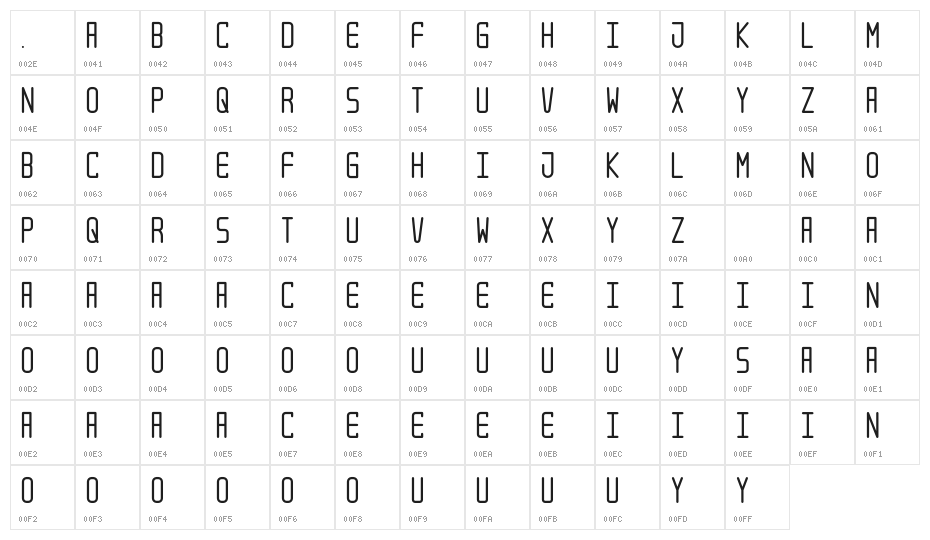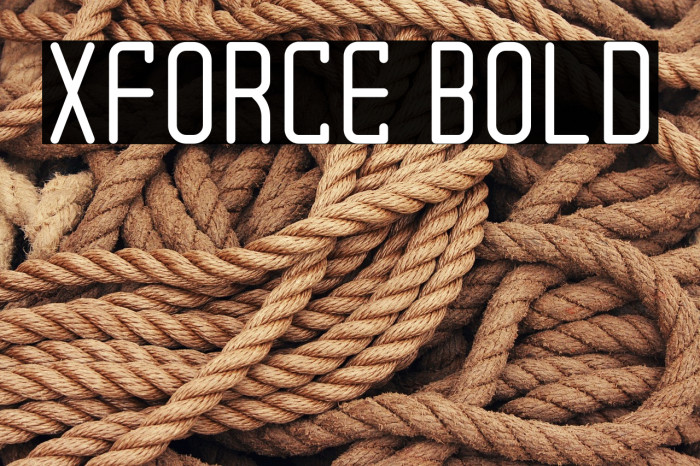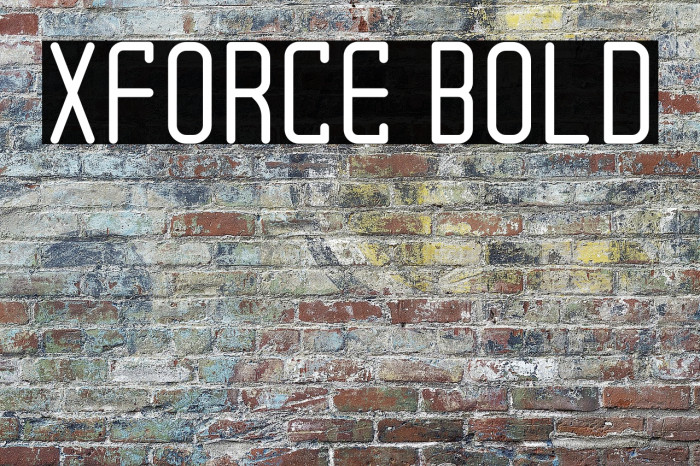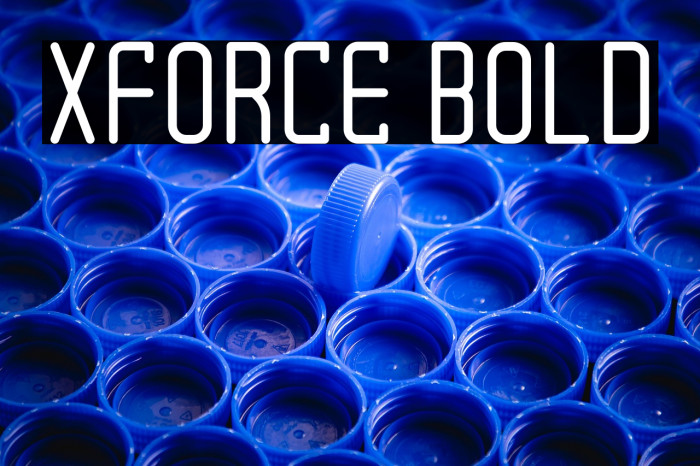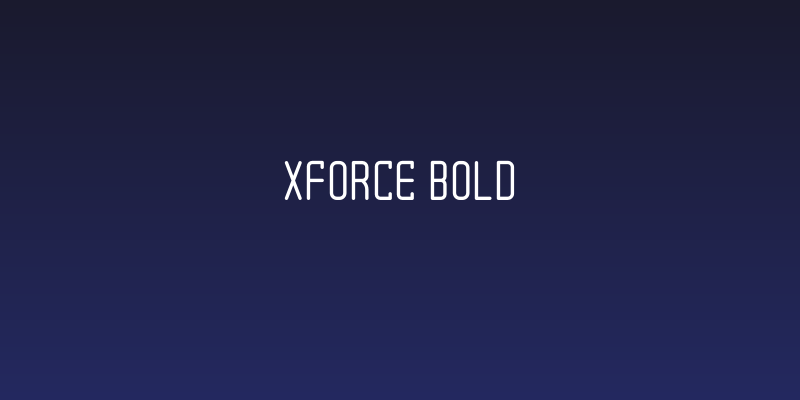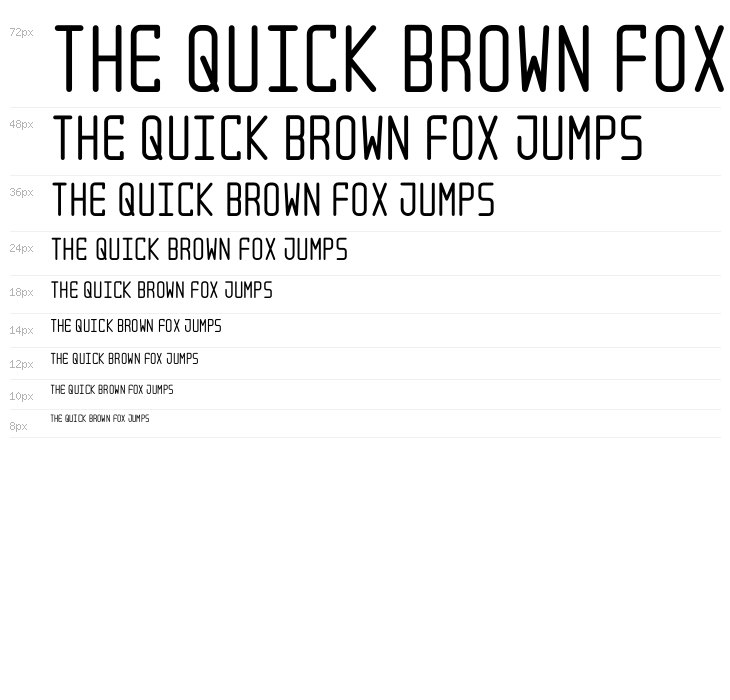
XForce Bold Font
XForce Bold Description
This font features a bold and modern design with rounded edges, giving it a friendly and approachable appearance. The characters are uniformly structured, maintaining a consistent height and width, which contributes to its clean and organized look. The rounded corners soften the overall feel, making it suitable for a variety of design applications. The uppercase letters are prominent and clear, ensuring readability even at smaller sizes. This font's geometric style is both contemporary and versatile, making it ideal for projects that require a modern yet accessible aesthetic.
| Use Case | Headlines, Logos, Digital Interfaces |
| Proposed Projects | Ideal for branding, signage, digital interfaces, and advertising materials. |